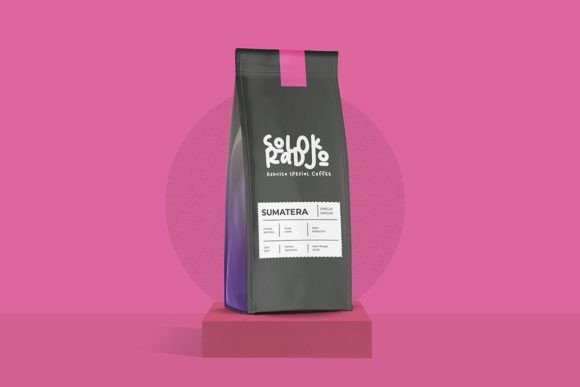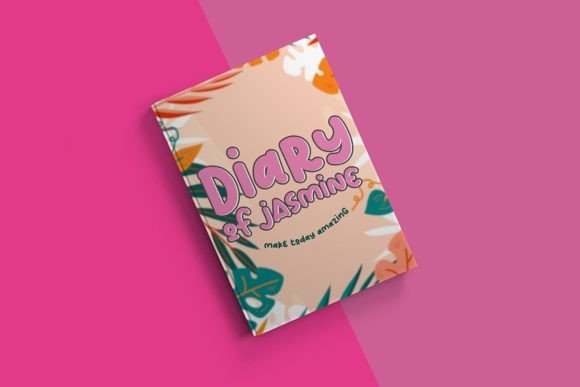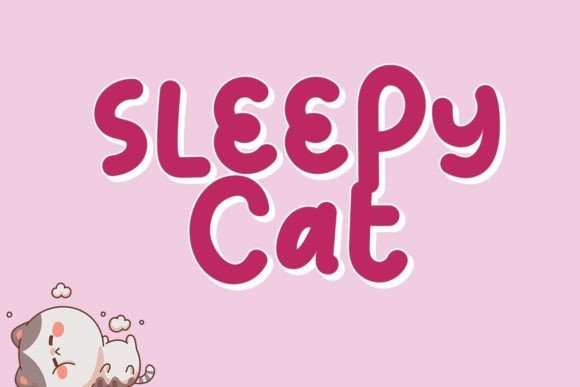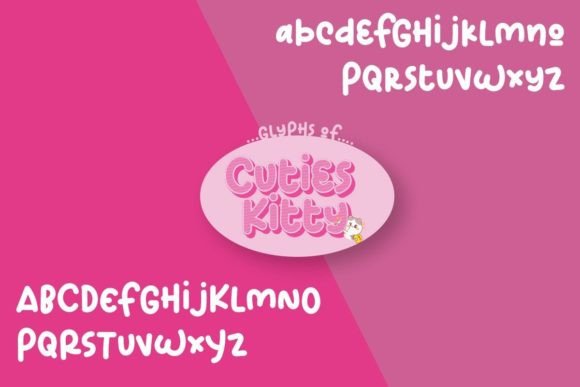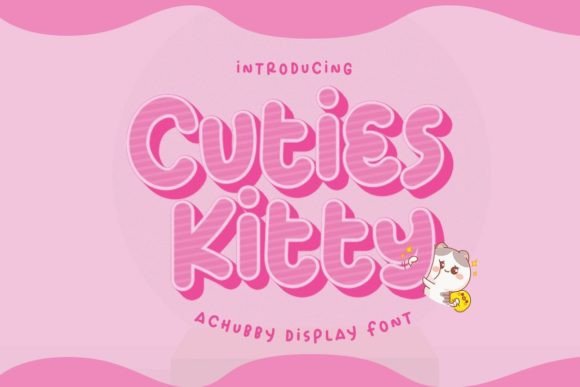
Introducing Cuties Kitty Font: The Ultimate Choice for Whimsical Designs
Are you a designer or crafter looking for a font that can add a touch of playfulness and fun to your projects? Look no further than Cuties Kitty Font! This adorable font is perfect for creating children-themed designs that are sure to delight. In this article, we’ll take a closer look at Cuties Kitty Font, its features, and how you can use it to create stunning designs.
What is Cuties Kitty Font?
Cuties Kitty Font is a chubby display font that boasts a fun and whimsical style. Its rounded edges and soft curves make it an ideal choice for designs that require a playful touch. This font is specifically designed for children-themed projects, such as kids’ party invitations, children’s book illustrations, and educational materials.
Key Features of Cuties Kitty Font
- PUA Encoded: Cuties Kitty Font is PUA (Private Use Area) encoded, which means you can access a wide range of glyphs and ligatures with ease. This feature allows you to create unique and creative designs that stand out from the crowd.
- Chubby Display Font: The font’s chubby design makes it perfect for headlines, titles, and other display purposes. Its bold and playful style is sure to grab attention and add a touch of fun to your designs.
- Whimsical Style: Cuties Kitty Font has a whimsical style that is reminiscent of children’s art. Its playful and carefree design makes it an excellent choice for projects that require a lighthearted touch.
- Works Well with Bright Colors: This font is specifically designed to work well with bright colors, making it perfect for children’s designs that require a pop of color.
Use Cases for Cuties Kitty Font
Cuties Kitty Font is a versatile font that can be used in a variety of design projects, including:
- Kids’ Party Invitations: Create adorable and playful invitations for kids’ parties with Cuties Kitty Font.
- Children’s Book Illustrations: Use this font to add a touch of whimsy to your children’s book illustrations.
- Educational Materials: Cuties Kitty Font is perfect for creating educational materials, such as worksheets, activity sheets, and posters.
- Crafting Projects: This font is also great for crafting projects, such as card making, scrapbooking, and DIY signs.
Tips for Using Cuties Kitty Font
Here are some tips for using Cuties Kitty Font in your designs:
- Pair with Bright Colors: Pair Cuties Kitty Font with bright colors to create a playful and eye-catching design.
- Experiment with Glyphs and Ligatures: Take advantage of the font’s PUA encoding and experiment with different glyphs and ligatures to add a unique touch to your designs.
- Use for Headlines and Titles: Use Cuties Kitty Font for headlines and titles to add a touch of whimsy and playfulness to your designs.
Cuties Kitty Font is a fun and whimsical font that is perfect for children-themed designs. Its chubby display style, PUA encoding, and whimsical design make it an excellent choice for designers and crafters looking to add a playful touch to their projects. With its versatility and ease of use, Cuties Kitty Font is sure to become a favorite in your design arsenal.